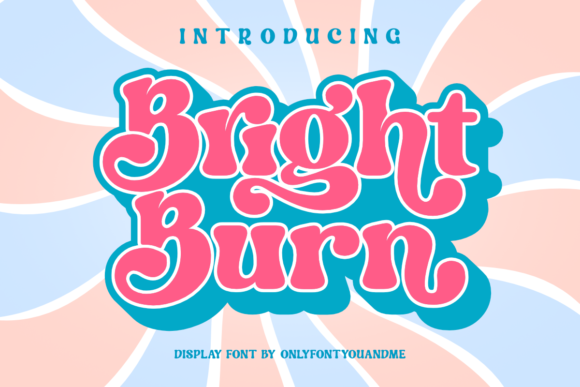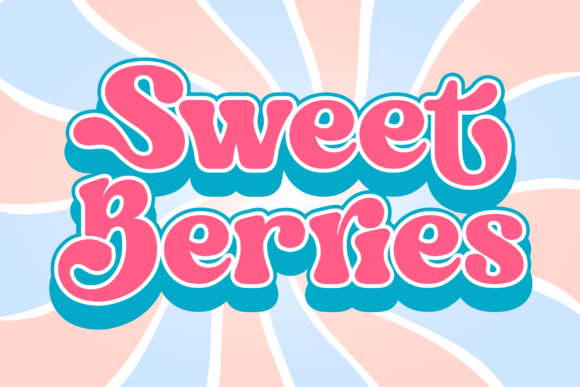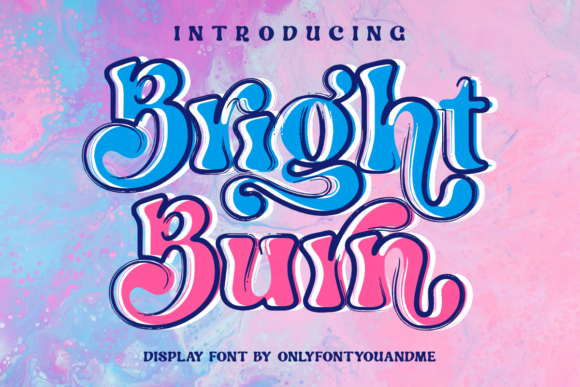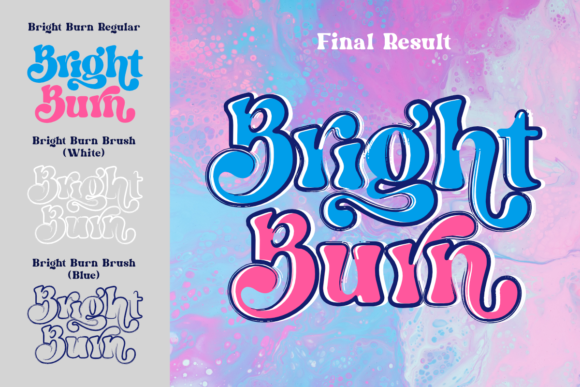
Bright Burn Font: A Groovy Retro Display Font for Headlines & Logos
About the Bright Burn Font
Discover the charm of Bright Burn Font. This font is a perfect blend of modern aesthetics and classic appeal. Bright Burn is cool, retro and fun display font. This font is PUA encoded which means you can access all of the glyphs and alternates with ease! It will look great on headlines, magazines, logos, branding and so much more!
Bright Burn’s retro-inspired boldness makes it ideal for headlines, posters, and branding projects requiring a strong visual impact. It’s particularly well-suited for projects with a vintage or pop-culture theme, think record labels, clothing brands, or event promotions. Avoid using it for body text or UI elements; its chunky forms are not optimized for readability in smaller sizes or extended passages.
Pairing Bright Burn effectively hinges on contrasting its playful energy. Consider a clean sans-serif like Open Sans for body text or a sophisticated serif such as Merriweather for a more refined look. For a bolder statement, a geometric sans-serif like Futura could create a striking contrast.
The font’s overall personality is energetic and retro-modern, conveying a sense of fun and playful confidence without being childish or overly whimsical.